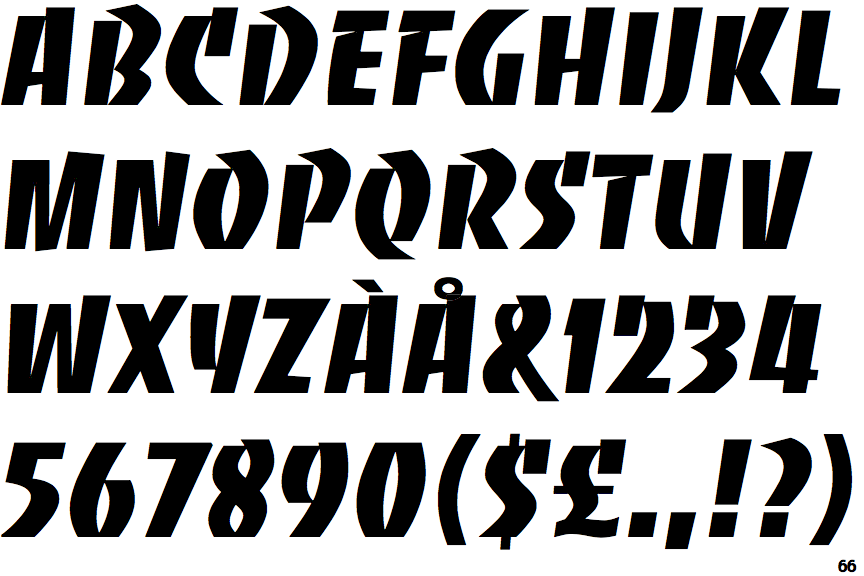
Banco Font With Flames Generator. Web banco font with flames generator generator. Web the font used for the logo of the magazine is banco, an inclined titling typeface originally designed by roger excoffon for the.